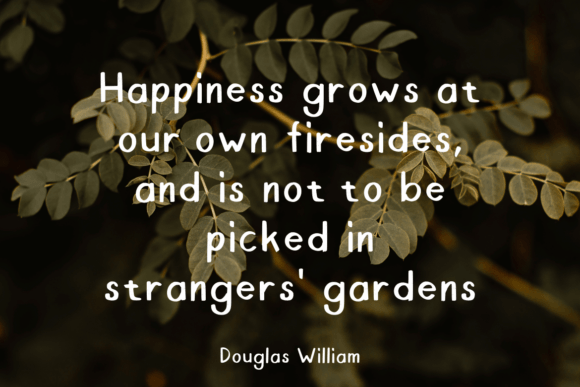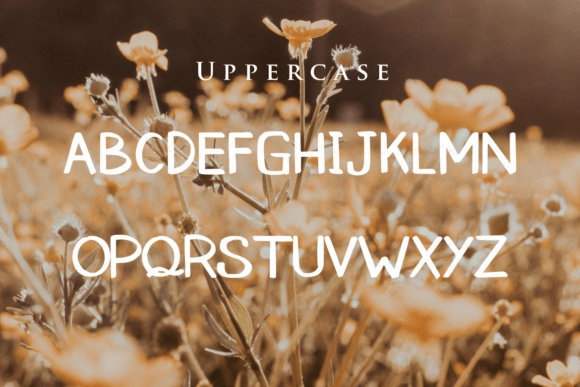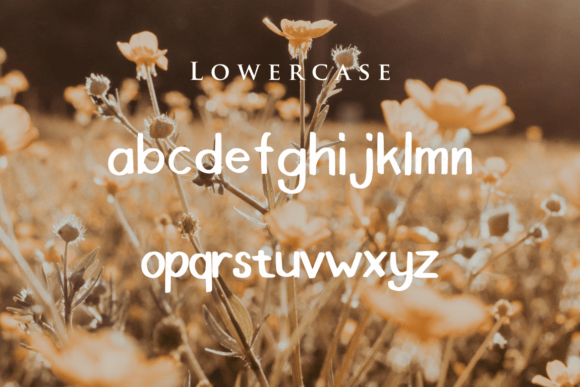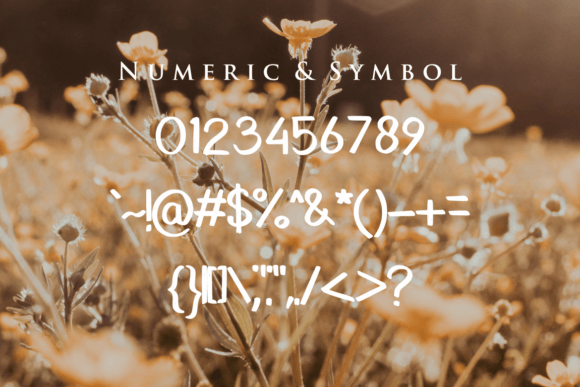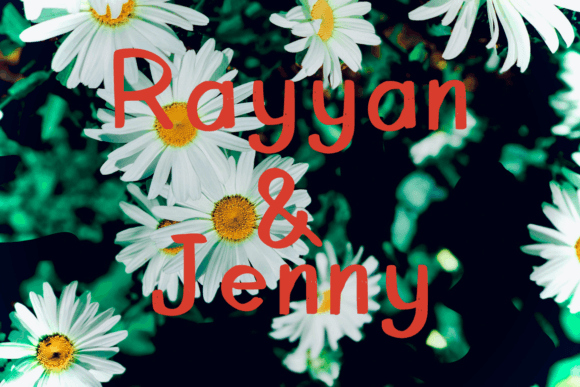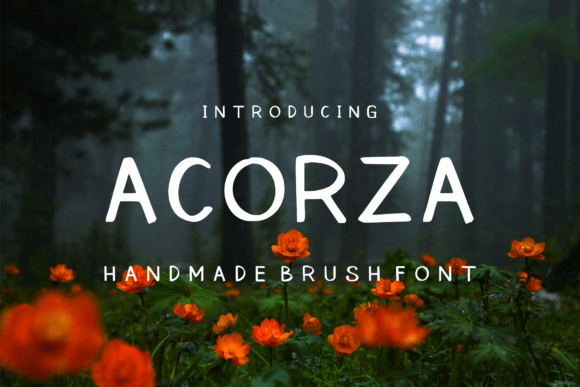
The Acorza Font: A Casual and Fun Handwritten Delight
I’ll never forget the time I was working on a project for a client who wanted a playful, handwritten font to match their brand’s friendly vibe. I spent hours scouring the internet for the perfect font, but nothing seemed quite right. That was until I stumbled upon Acorza, a casual and fun handwritten font that instantly captured the tone I was looking for. In this article, I’ll share my experience with Acorza, its features, and how to make the most of it in your designs.
An Honest Review of Acorza
Acorza has quickly become one of my go-to fonts, and for good reason. Here are some things I love about it:
- ✨ Casual and playful feel: Acorza has a relaxed, handwritten look that’s perfect for designs that need a friendly touch.
- ✅ Versatile: Whether you’re working on a craft project, digital design, presentation, or greeting card, Acorza adapts seamlessly.
- 🎉 Easy to read: Despite its casual nature, Acorza is surprisingly legible, making it suitable for both headings and body text.
Of course, no font is perfect, and Acorza has a few quirks:
- 🤔 Limited formal applications: Acorza’s playful nature makes it less suitable for formal or corporate designs.
- ⚠️ Some letter variations: While Acorza has a range of glyphs and stylistic alternates, some users may find the selection limited.
The Story Behind Acorza
Acorza was designed with the intention of creating a friendly, approachable font that would bring a smile to the user’s face. Its creator drew inspiration from everyday handwriting, aiming to capture the imperfections and charm of handwritten text. The result is a font that’s both casual and delightful.
| What is Acorza best used for? | Acorza is perfect for designs that require a casual, playful touch, such as crafts, digital designs, presentations, and greeting cards. |
| Is Acorza suitable for formal designs? | No, Acorza’s playful nature makes it less suitable for formal or corporate designs. |
| Does Acorza have any special features? | Yes, Acorza has a range of glyphs and stylistic alternates that can add variety to your text. |